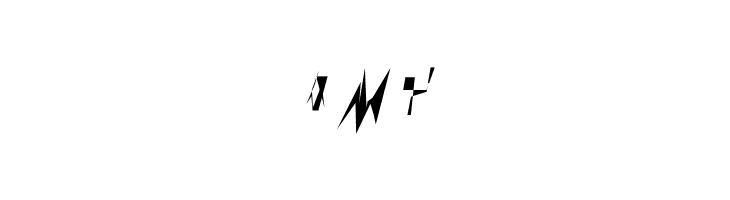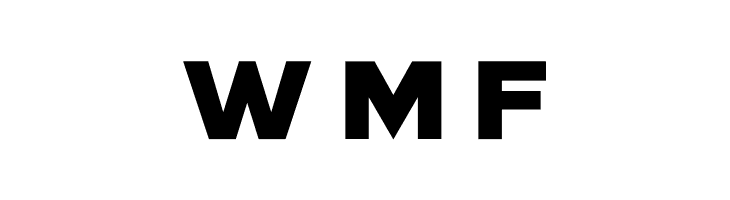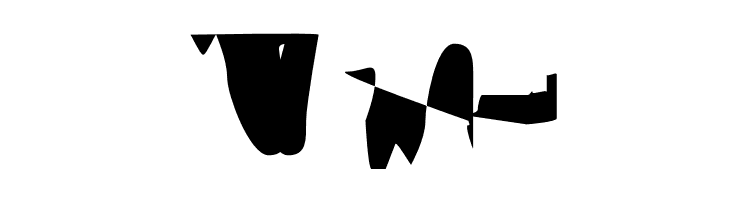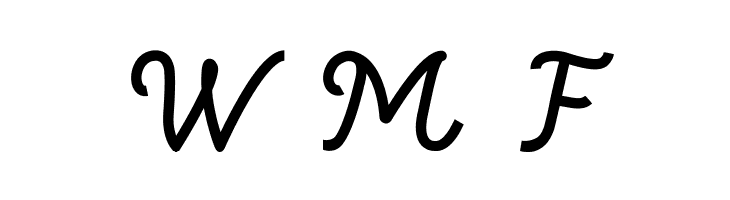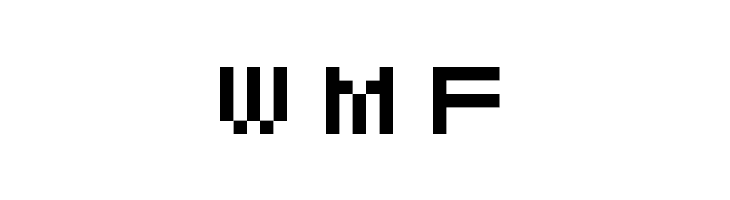
A casual handwritten font with smooth curves and a friendly appearance.
A bold, three-dimensional font with a shadow effect, ideal for striking designs.
An elegant serif font with decorative elements and intricate line work.
A bold, futuristic font with a strong geometric structure.
An abstract, fragmented font with bold, irregular characters for avant-garde designs.
A chaotic, abstract font with fragmented and distorted letterforms.
A chaotic and abstract font with bold, fragmented letterforms.
A pixelated, retro-style font with a blocky, digital appearance.